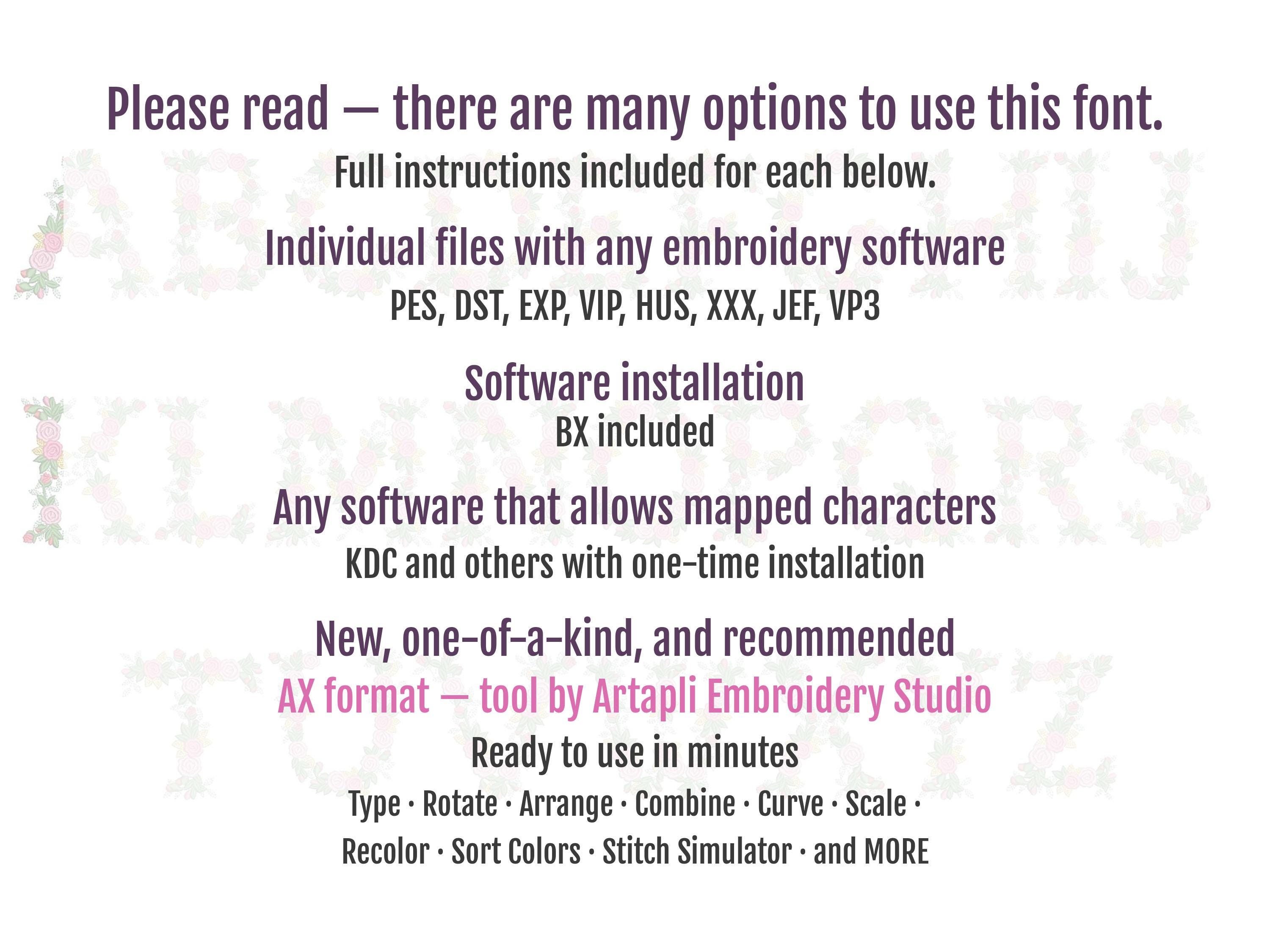
Urban roses floral font alphabet, garden flag, monogram, liberty fashioned flowers, Font machine embroidery designs in assorted size 3, 4, 6, 7, 8in, BX included
Letters A-Z